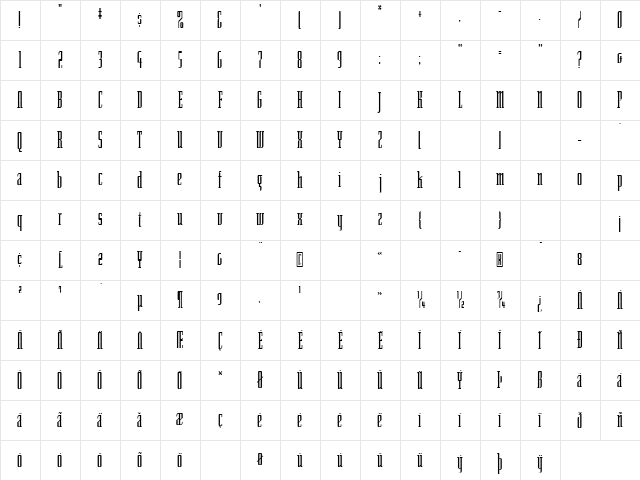
SenatorTall Regular Free Font
SenatorTall Regular
SenatorTall Family
SenatorTall Regular
Complete SenatorTall Regular glyph index. Displaying only characters natively supported by SenatorTall Regular font.
Design Context for SenatorTall
SenatorTall is a composed and adaptable typeface that performs quietly and consistently across a wide range of design contexts.